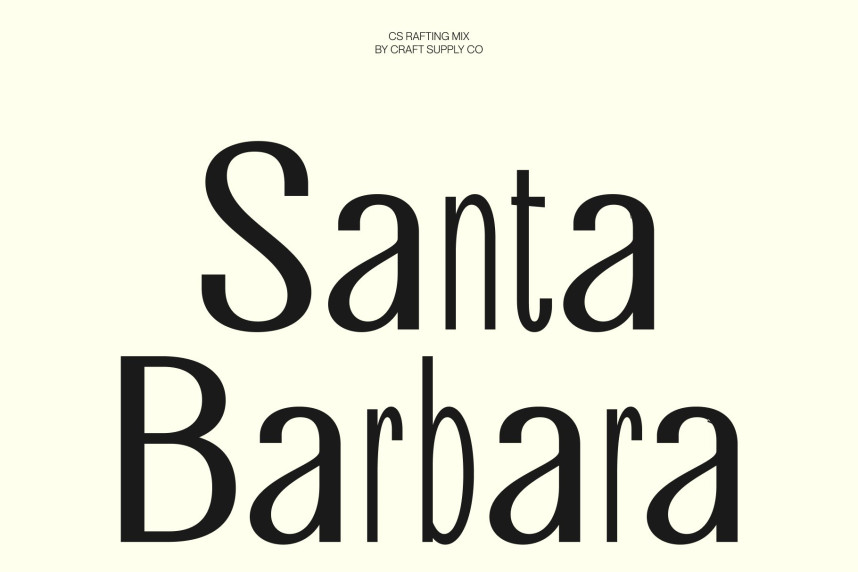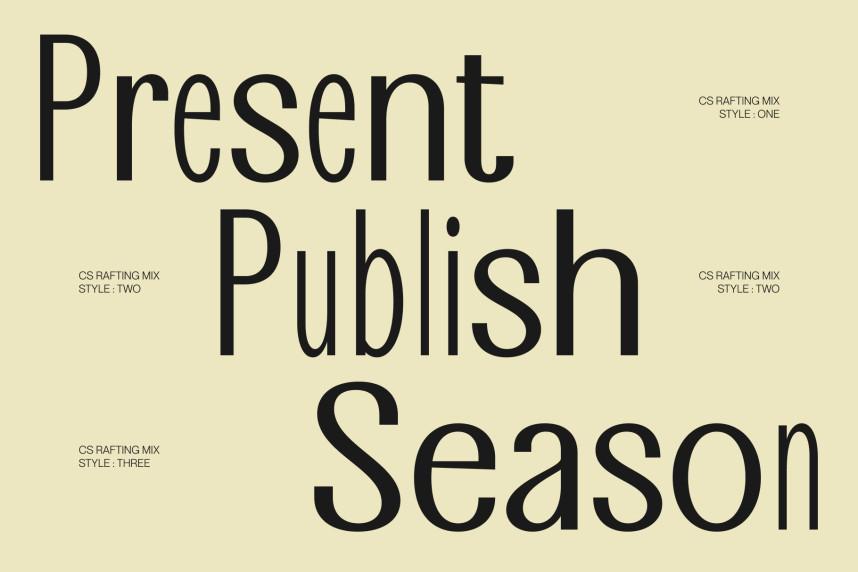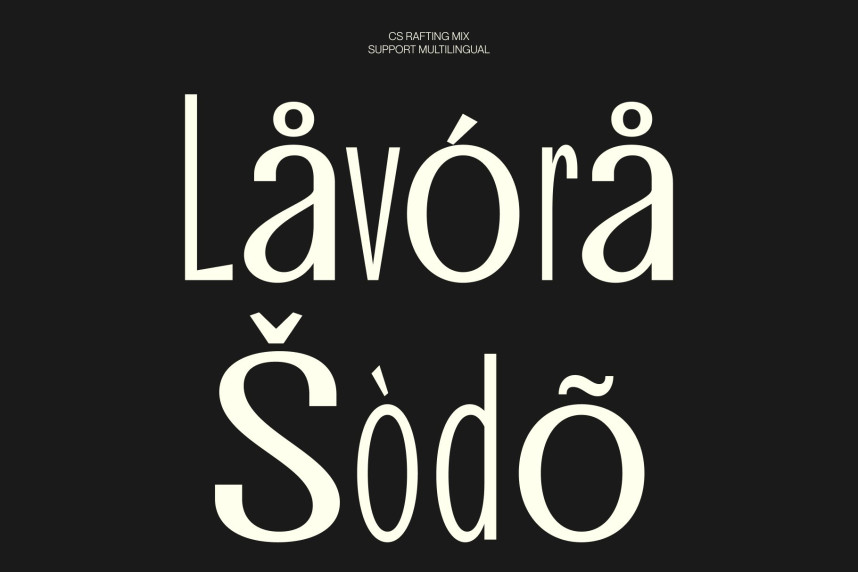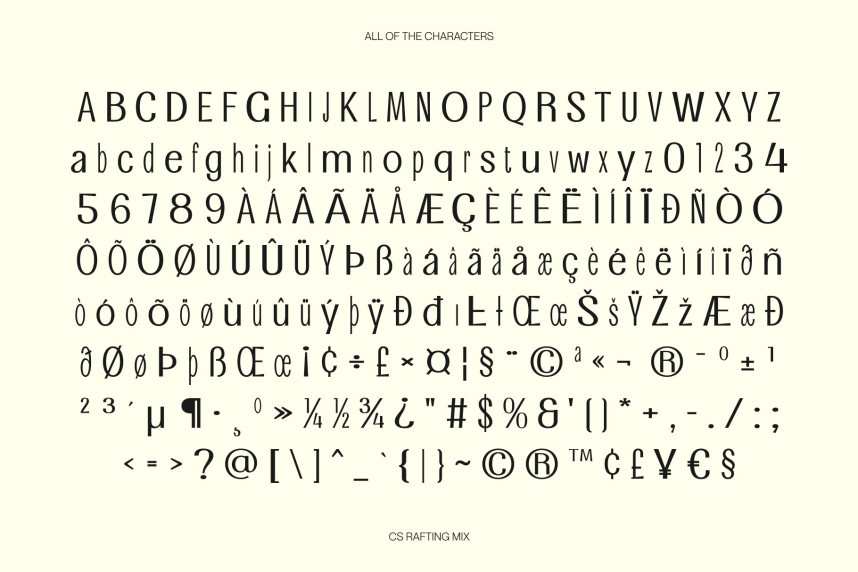
CS Rafting Mix Font
CS Rafting Mix Font – Modern Sans Serif Font: Elongated Elegance with Confident Modern Strength
Modern Sans Serif with Mixed Style Character
This is a modern sans serif font designed to express confidence, precision, and contemporary sophistication. Built with clean structures and elongated proportions, this typeface introduces a distinctive mixed-style concept that adds subtle contrast and visual rhythm to every composition.